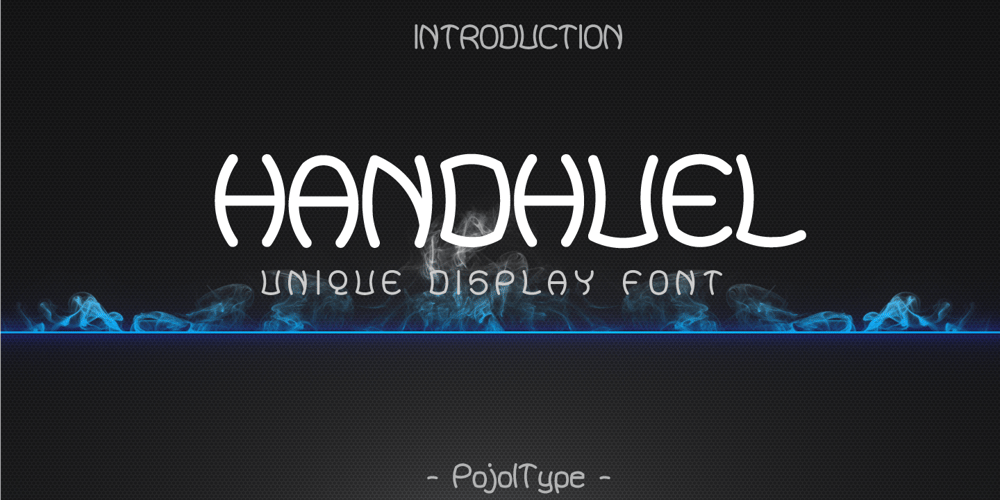
Handhuel Font Family was designed by Fauzul Azmi and published by PojolType. Handhuel contains 1 styles and family package options. The font is great for logos, branding, apparel and headlines.This typeface encapsulates a wide range of nuances, seemingly, opposite elements such as technology with friendly rounded shapes.